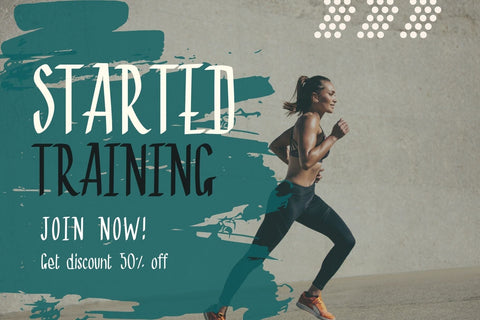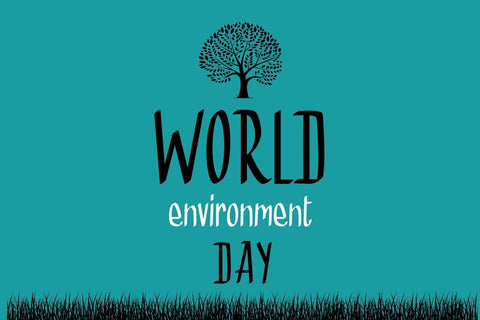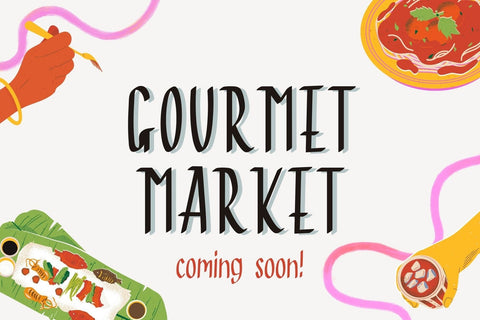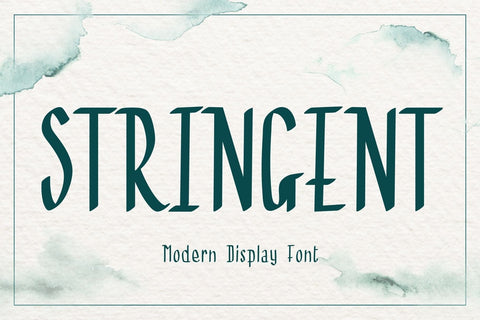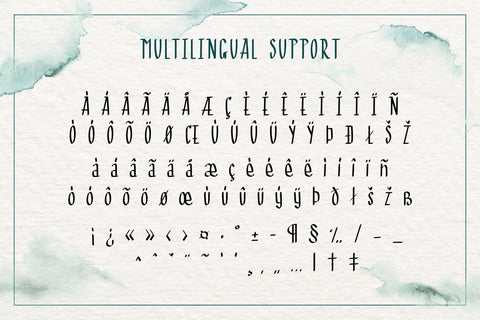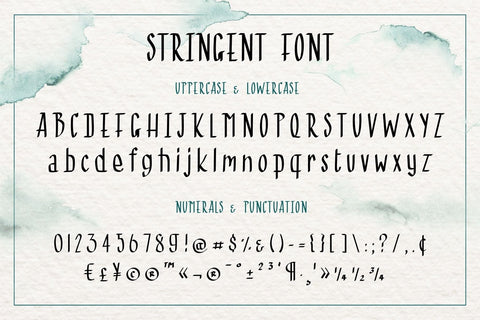
Stringent Font – Tall Narrow Modern Display Font with Quirky Style
Stringent is a tall and narrow modern display font with a quirky hippie vibe. Its playful curves and handcrafted feel make it perfect for standout designs—from fun event posters and artistic branding to Cricut projects, packaging, and more. This all-caps font comes with full punctuation, numerals, and multilingual support. Whether you're designing workout flyers, eco-campaign graphics, or food market signs, Stringent adds a bold, creative edge to your work.
✔ Uppercase & lowercase
✔ Numerals & punctuation
✔ Multilingual support
🌀 Hippie / Boho projects
📦 Labels & packaging
🎉 Party invites & posters
✂️ Cricut crafts & quotes
🎨 Bold branding ideas